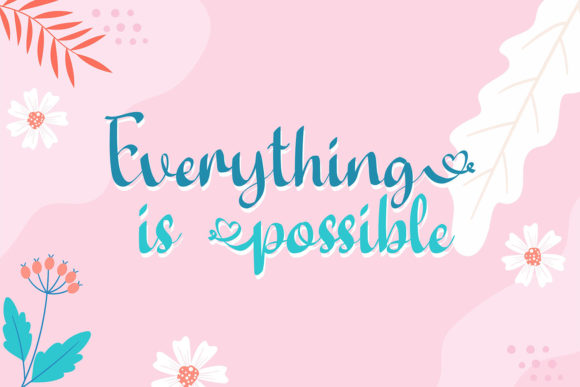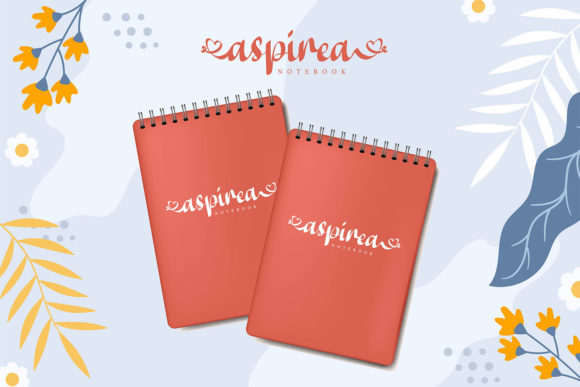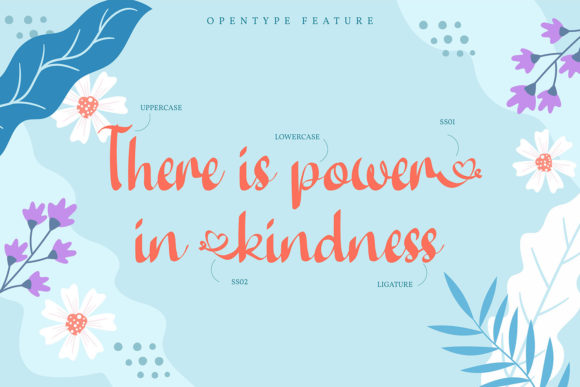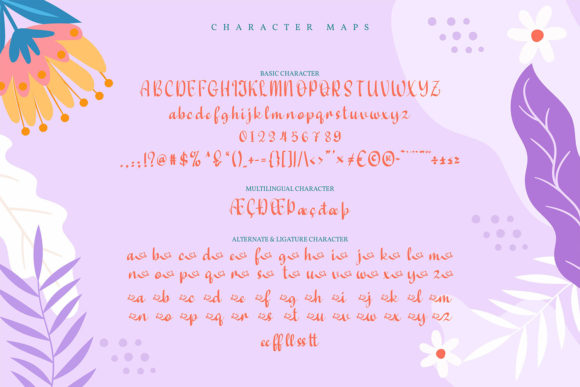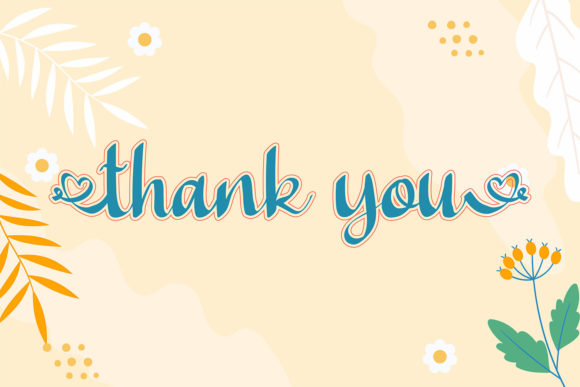
Introduction to Mayleena Font
Have you ever found yourself stuck in a creative rut, struggling to bring a design project to life? For many designers, this is a familiar feeling – but it doesn’t have to be. Sometimes, all it takes is a single, high-quality design resource to spark inspiration and set your creative juices flowing. This is where the enchanting Mayleena Font comes in – a whimsical script font that is sure to add a touch of magic to any project.
With its relaxed theme and lovely style, the Mayleena Font is an incredibly valuable asset to any designer’s library. Whether you’re working on a free download for a blog, creating a logo for a new business, or crafting a graphic for a social media post, this font is sure to elevate your design and make it stand out from the crowd.
Key Features of Mayleena Font
- Unique, elegant script font with a transparent background, perfect for adding a touch of sophistication to designs.
- Features a large character set, including uppercase and lowercase letters, numbers, and punctuation marks, making it suitable for a wide range of applications.
- Designed to be versatile, the Mayleena Font is ideal for use in wedding invitations, branding materials, and other creative projects that require a touch of elegance.
Honest Review: Mayleena Font
I recently had the chance to work with the Mayleena Font, and I must say it’s been a game-changer for my design projects. As a design resource, this font delivers high quality and sophistication, making it perfect for creative projects that require a touch of elegance.
- High-quality design with a transparent background
- Available in various styles and weights
- Perfect for creative projects that require a touch of elegance
- Not suitable for projects that require a bold, edgy look
Overall, I’m thoroughly impressed with the Mayleena Font. Its high quality, versatility, and accessibility make it an excellent addition to any design resource library. Whether you’re a seasoned designer or just starting out, the Mayleena Font is definitely worth checking out.
Getting the Most Out of Mayleena Font
To get the most out of the Mayleena Font, use it with a transparent background to create visually appealing graphics. You can also experiment with different font sizes and styles to achieve a unique look.
The Mayleena Font is ideal for various creative projects, including:
- Typography projects
Alternatives to Mayleena Font
Lovisa Font
Lovisa Font is a modern, elegant script font suitable for various design projects, including creative branding and editorial design. It features a high-quality design and a transparent background, making it easy to use on different design elements. When to use: Fashion branding, luxury packaging, and high-end editorial design. Compared to Mayleena Font, Lovisa Font has a more modern and sleek look.
Can I customize the Mayleena Font to fit my design needs?